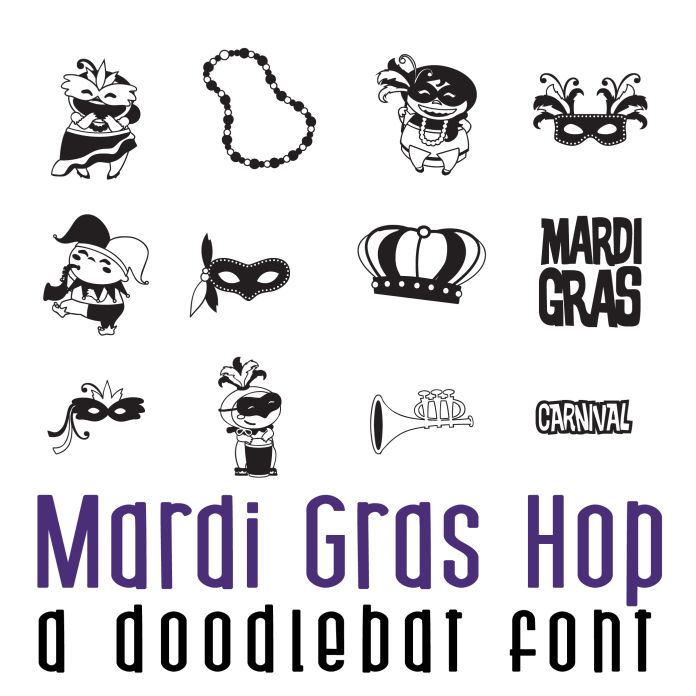
This adorable doodlebat font features 26 masquerading party goers, perfect for parties, crafts, decor, planner stickers, scrap book pages, cards and more!